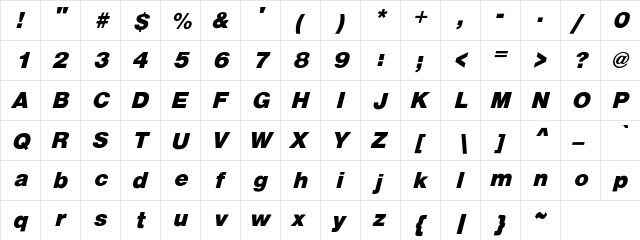
HelveticaObl-He Regular
Design Context for HelveticaObl-He Typeface
HelveticaObl-He offers clean, dependable letterforms without strong stylistic allegiance, making it a practical choice for designers who need flexibility.
Pro Tip: Use HelveticaObl-He in both headline and body roles to test its range before committing to a single application.